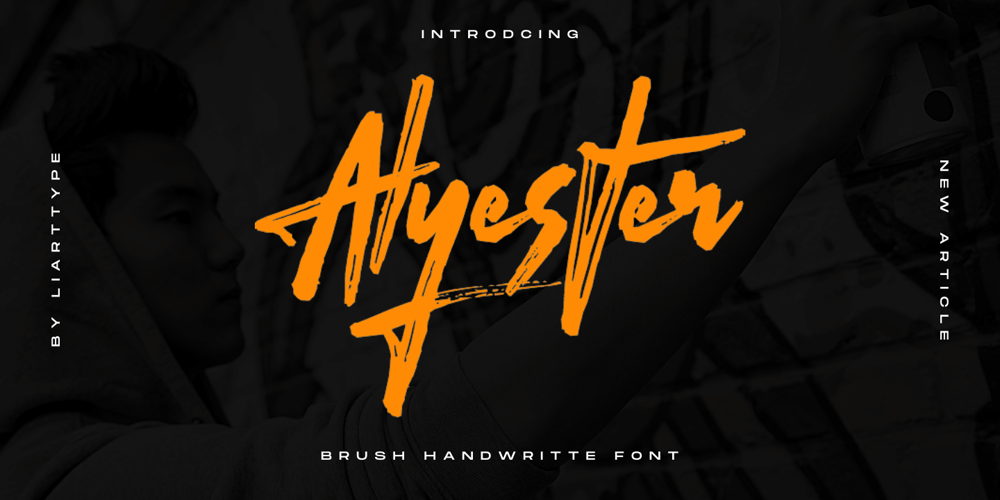
Alyester
Alyester font
Alyester Font Family was designed by Ali Sifak Muftari and published by Liartgraphic. Alyester contains 1 styles and family package options. Hello gaes!How are you guys doing ? i’m sure that’s nice!Meet our newest product, we call this product Alyester font.Alyester font are cute typeface fontWhit a uniqe touch and assertiveAlyester font is very nice to use on:fashion magazine,logos, ,and photography,landing page,fliyer,What’s includes- mutilngual support- alternate- ligatureThank you,salutationsAli Sifak Muftari